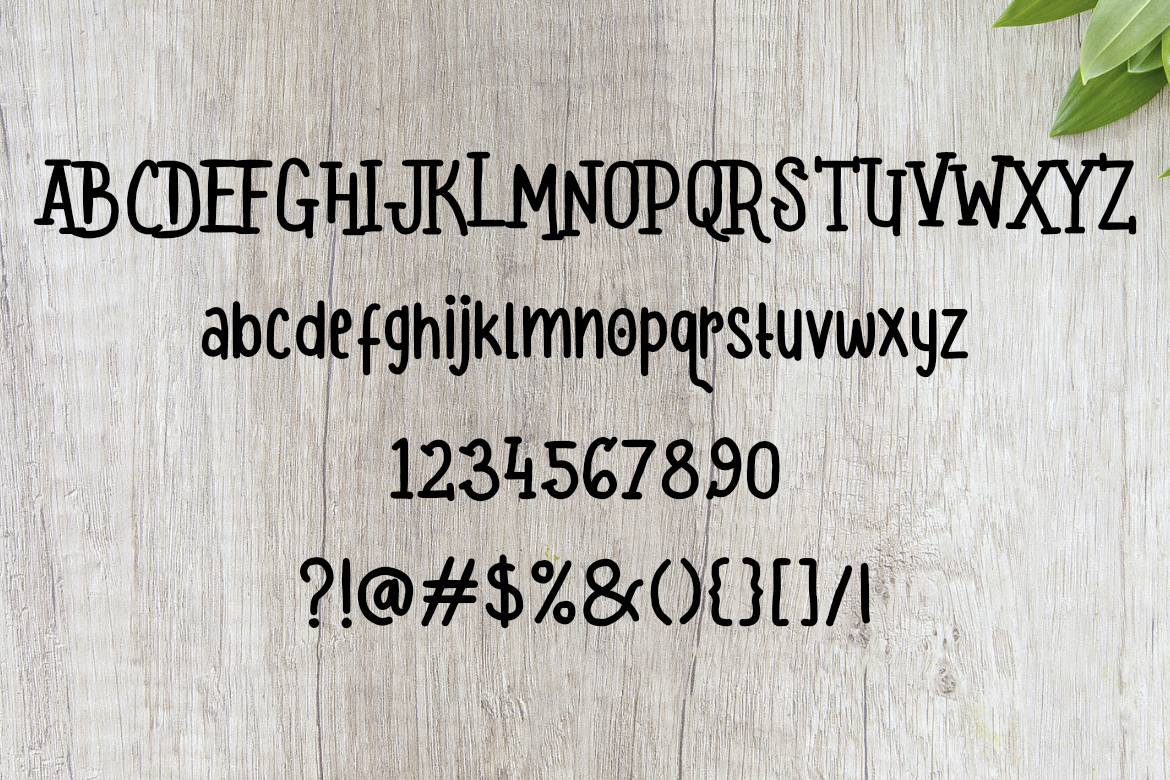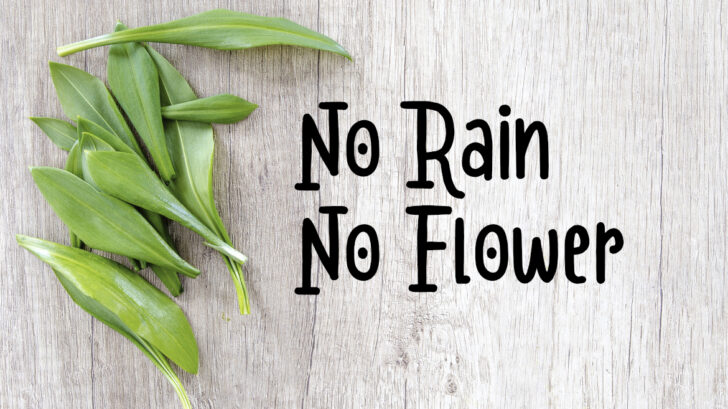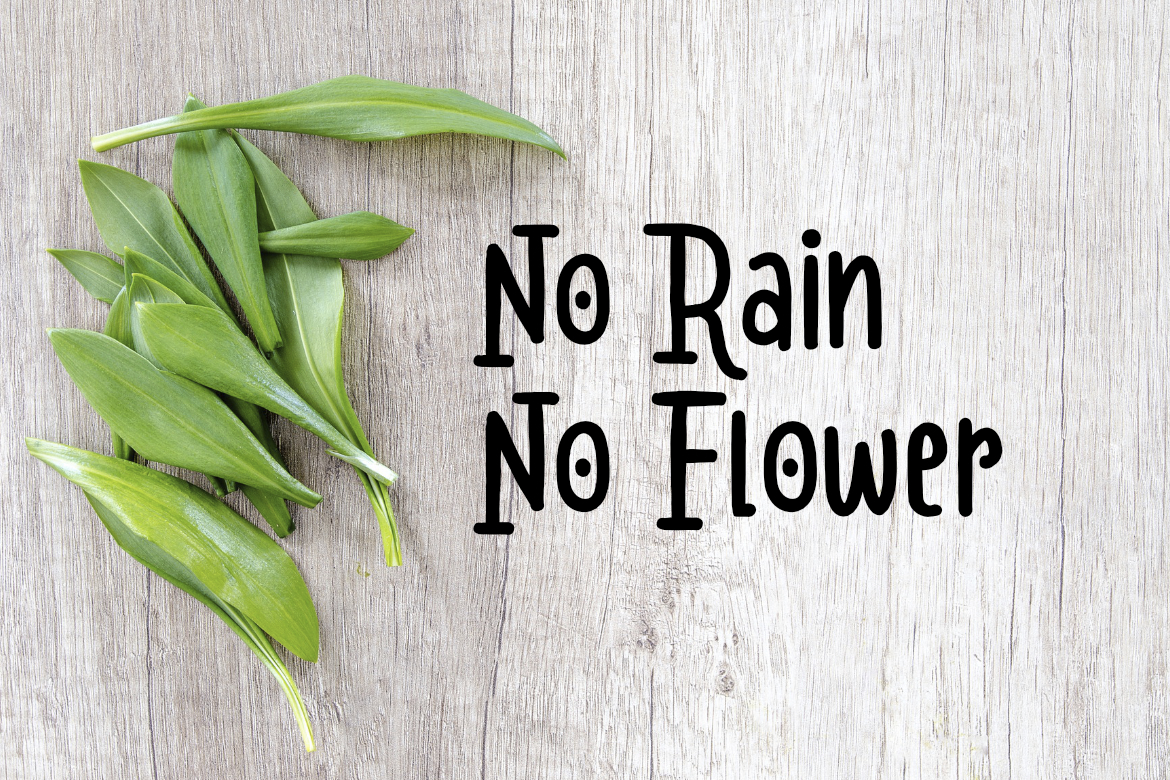
Font Hunter Font
FONT HUNTER FONT SPECIMEN
Font Hunter is a fun, slab serif font with some edge. This font has some embellished characters for a fun and unique look, perfect for a large range of type-based design options.